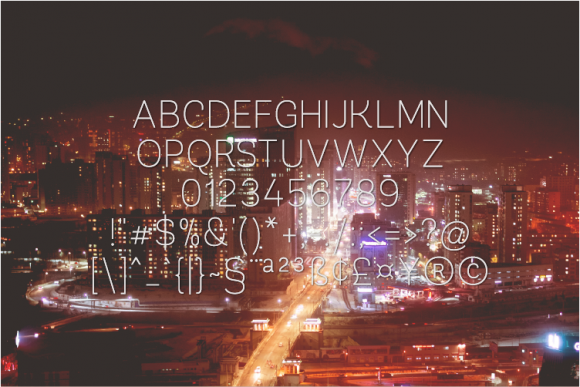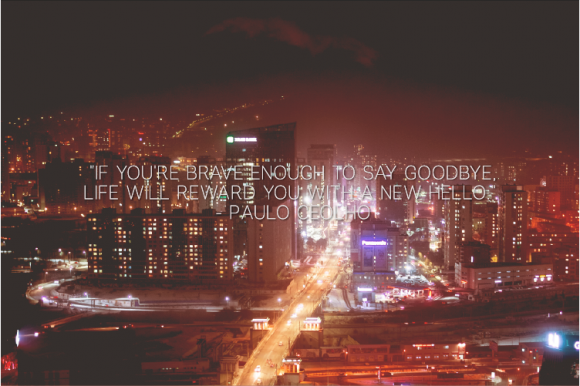
The Perfect Typography Companion: Hunesta Font
As a designer, there’s nothing quite like the thrill of bringing a creative vision to life. You’re sitting at your desk, surrounded by scribbled notes, concept sketches, and a sea of digital files. Suddenly, the perfect font pops into your head, and your entire project begins to take shape. This is exactly the kind of moment that Hunesta Font is designed to facilitate.
Hunesta Font is a stunning sans serif typeface that’s perfect for creating beautiful headings, gorgeous invitations, and stunning logos. Its clean lines, elegant curves, and versatile design make it an ideal choice for any project, from weddings and save-the-dates to business displays and headers.
What sets Hunesta Font apart is its ability to elevate even the simplest designs into works of art. As a designer, you know how much a well-chosen font can make or break a project. With Hunesta Font, you’ll have the perfect tool to take your creations to the next level.
Hunesta Font Key Features
- Unique Characteristics: Hunesta Font features a unique blend of modern and vintage elements, making it perfect for creating unique and eye-catching designs.
- Kerning and Ligatures: Hunesta Font includes advanced kerning and ligature pairs, ensuring that the font looks polished and professional even at small font sizes.
- OpenType Features: Hunesta Font includes a range of OpenType features, including swashes, ornaments, and stylistic sets, allowing designers to add a touch of personality to their designs.
Hunesta Font Review
Overall, I’d say the Hunesta Font is a decent addition to any designer’s toolkit. ✨ Here are a few things it does well:
- It’s a clean, modern sans-serif font with a subtle flair.
- The Hunesta Font is highly legible, even at small font sizes.
- It comes in a range of weights, from light to bold, which makes it versatile for different design applications.
- ⚠️ The Hunesta Font may not be the best choice for body text in longer documents, as it can start to feel a bit same-y.
- ⚠️ The font family is not as extensive as some other popular sans-serif fonts, which may limit its usability in certain situations.
Overall, I think the Hunesta Font is a solid choice for designers who want a clean, modern look. While it may not excel in every situation, it’s a great option for titles, headings, and other display text. Just be aware of its limitations and choose it wisely.
Tips for Getting the Most Out of Hunesta Font
Use Hunesta Font to add a touch of elegance and sophistication to your designs.
Combine Hunesta Font with other fonts to create a unique and eye-catching typography.
Hunesta Font is ideal for:
Business cards and branding materials
Magazine and newspaper headlines
Any design project where you want to add a touch of luxury and sophistication.
Alternatives to Hunesta Font for Designers
Montserrat is a sans-serif font designed for urban environments. It’s perfect for digital and print media, especially for headings and titles. Montserrat is more geometric and modern compared to Hunesta Font, which has a more rounded and elegant feel.
Merriweather is a classic serif font ideal for body text, especially in print media. It’s elegant and sophisticated, making it suitable for books, magazines, and other publications. Merriweather is more traditional and formal compared to Hunesta Font, which has a more modern and playful feel.
Inter is a modern sans-serif font designed for digital media. It’s clean, simple, and highly legible, making it perfect for web design, mobile apps, and other digital interfaces. Inter is more minimalist and versatile compared to Hunesta Font, which has a more unique and expressive feel.